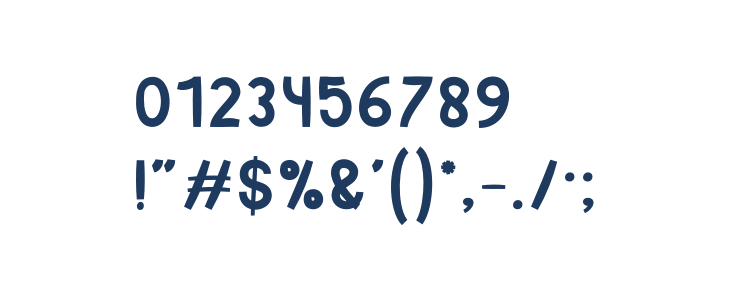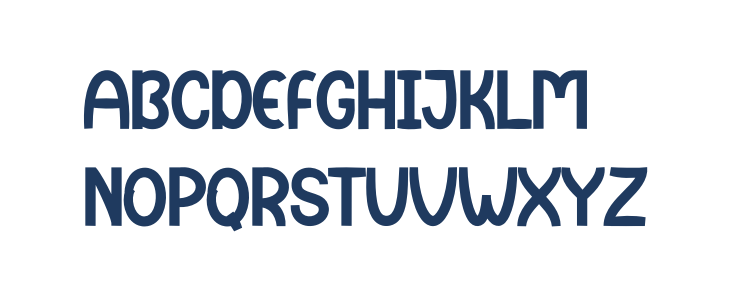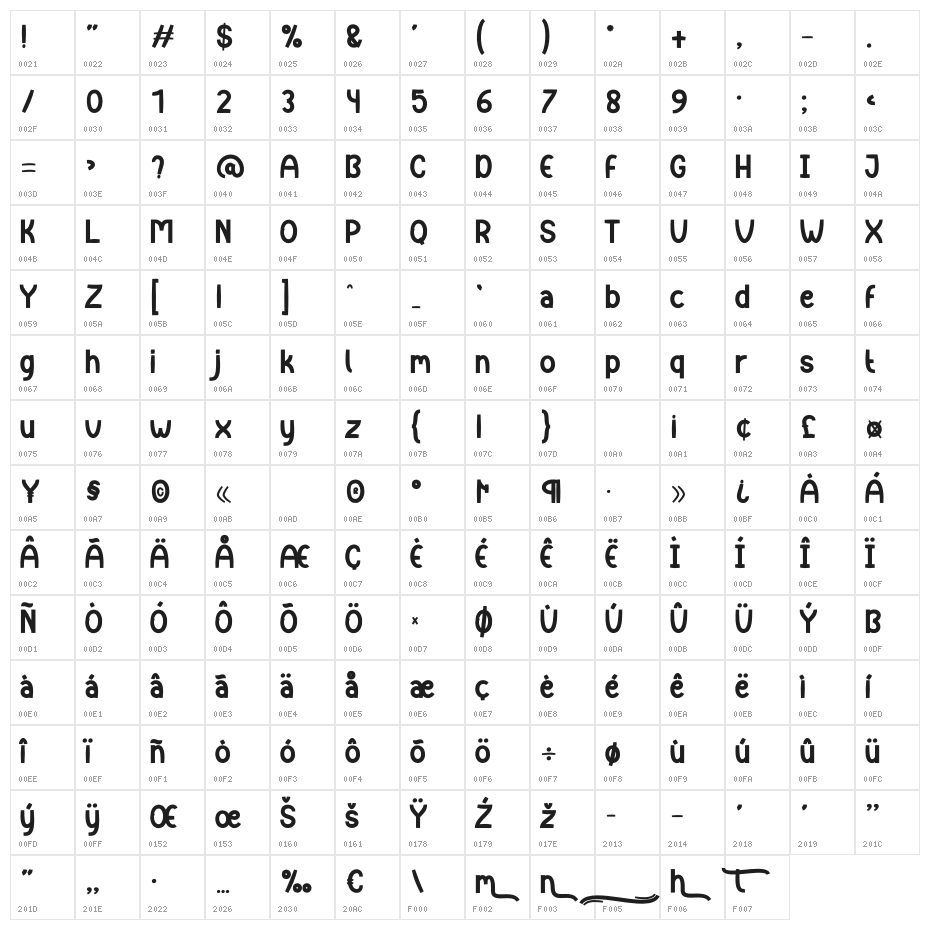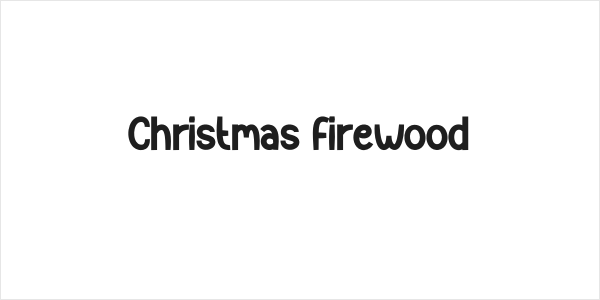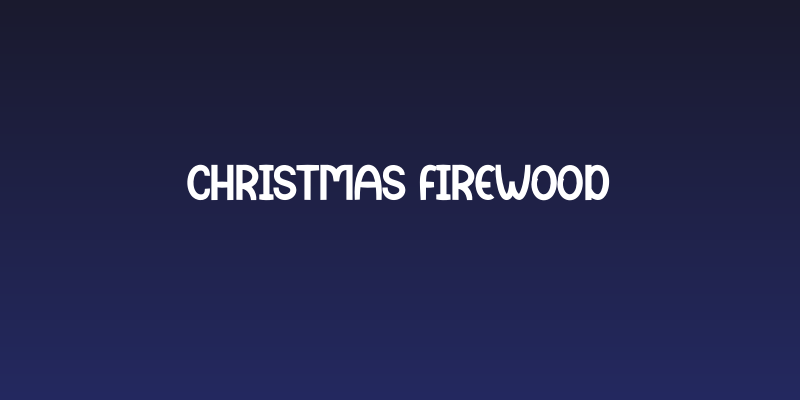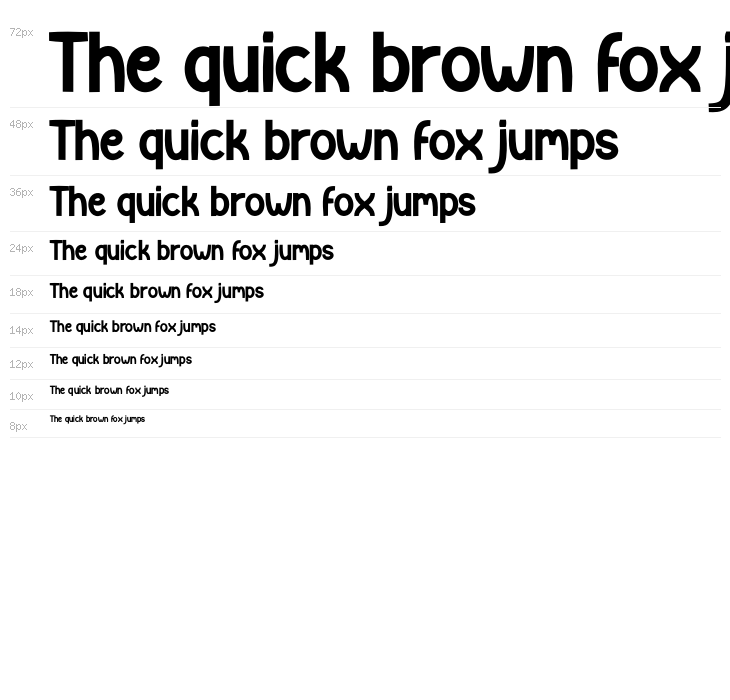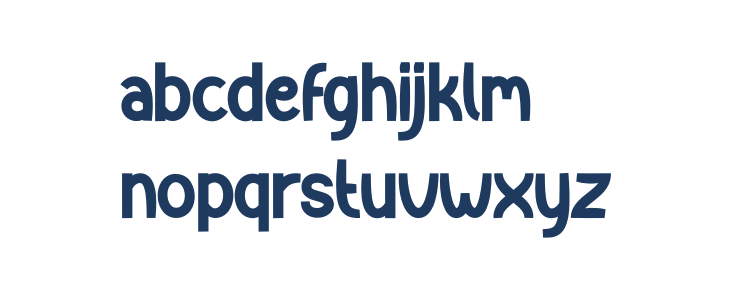
Christmas Firewood Font
Christmas Firewood Description
A playful, rounded sans-serif typeface with quirky, uneven letterforms and a hand-drawn feel. The strokes are consistent in thickness, and the characters have a whimsical, informal appearance.
| Overall Style | Decorative, Playful, Informal |
| Use Case | Headlines, Posters, Greeting cards, Logos |
| Proposed Projects | Holiday cards, children's books, festive posters, party invitations, playful branding. |